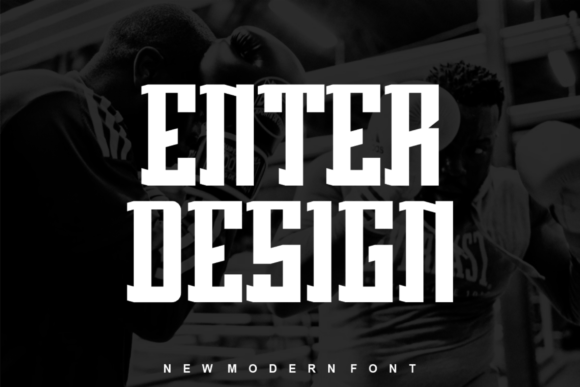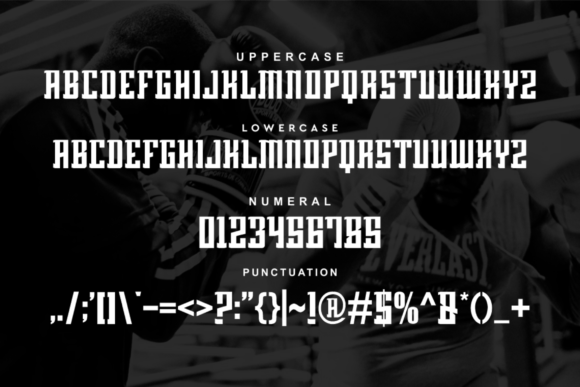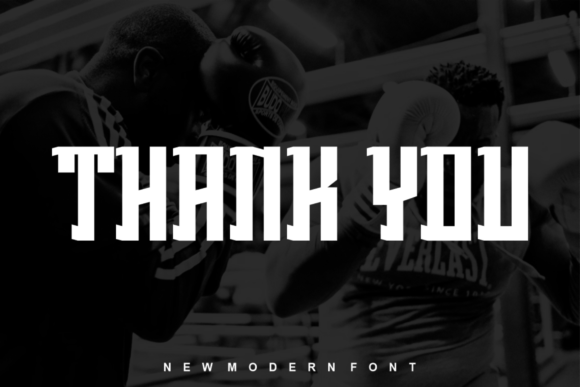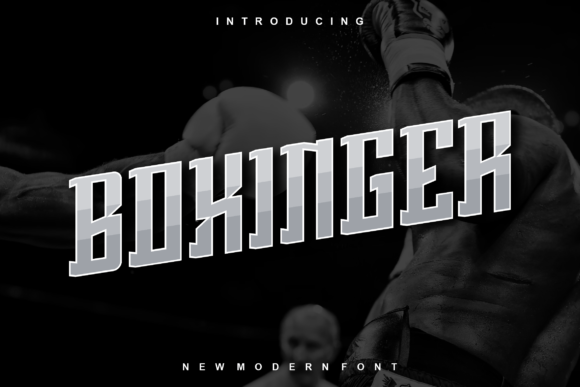
The Ultimate Display Font: Boxinger
Have you ever been in the middle of a design project, and suddenly, you’re stuck on finding the perfect font? I remember a recent experience where I was working on a branding project for a trendy new coffee shop. The client wanted a bold, eye-catching font that would make their logo stand out. After hours of searching, I stumbled upon Boxinger – a bold and assertive display font that instantly brought the project to life.
An Honest Review of Boxinger
Boxinger is a modern and cool font that has become a staple in my design toolkit. Here’s what I love about it:
- ✨ Bold and Assertive: Boxinger makes a statement with its bold and assertive style, perfect for headlines, titles, and logos.
- ✅ Versatile: Its modern look makes it suitable for a wide range of creative projects, from fashion brands to tech startups.
- 💡 Attention-Grabbing: Boxinger is designed to grab attention, making it perfect for advertising, marketing materials, and social media graphics.
While Boxinger is an excellent font, it’s not without its quirks:
- 🤔 Limited Legibility: Boxinger’s bold style can make it difficult to read in smaller sizes or at a distance.
- ⚠️ Overuse: Using Boxinger excessively can lead to visual overload, so it’s essential to balance it with other fonts.
The Backstory of Boxinger
Boxinger was designed with the intention of creating a bold and attention-grabbing font. The designer aimed to craft a font that would be perfect for headlines, titles, and logos. With its modern and cool look, Boxinger has become a popular choice among designers and creative hobbyists.
| What is Boxinger best used for? | Boxinger is best used for headlines, titles, logos, and other display text that requires a bold and attention-grabbing style. |
| Can I use Boxinger for body text? | No, Boxinger is not recommended for body text due to its bold style and limited legibility in smaller sizes. |